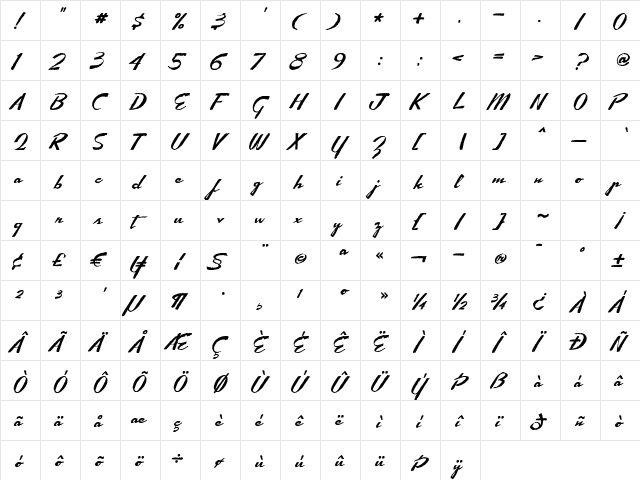
El Ranchero Regular Font Preview
El Ranchero Regular
El Ranchero Regular Font Details
Design Context for El Ranchero Typeface
El Ranchero is a composed and adaptable typeface that performs quietly and consistently across a wide range of design contexts.